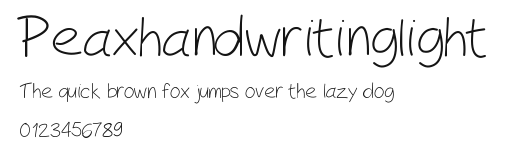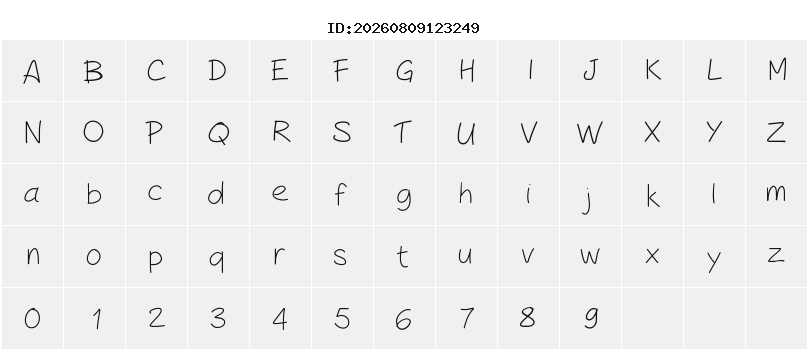
Peaxhandwritinglight Preview
• Font Name: Peaxhandwritinglight
• Full Font Name: Peaxhandwritinglight
• PostScript Name: Peaxhandwritinglight
About Peaxhandwritinglight.ttf
Peaxhandwritinglight.ttf is a modern, elegant sans-serif font designed for ultimate readability and visual harmony. Perfect for branding, headlines, web design, and print materials.